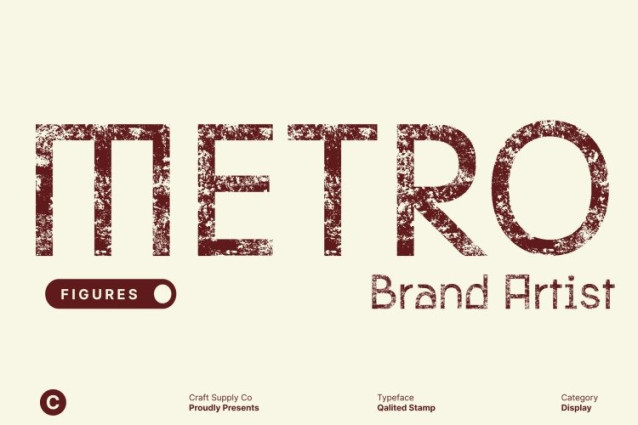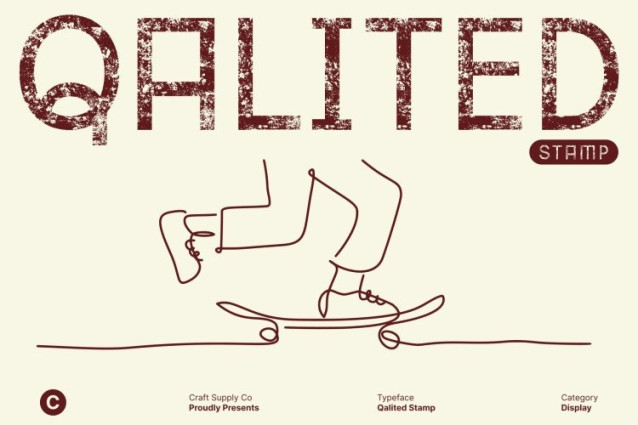
Qalited Stamp Font
Qalited Stamp Font This is a modern sans serif font designed with a unique blend of quirky personality and sleek industrial structure. Its clean, contemporary shapes create a bold visual identity, while subtle irregularities in form add a friendly, approachable feel. This balance of precision and playfulness makes a standout choice for designers seeking something modern yet full of character.
Industrial-Inspired Shapes for a Strong, Stylish Look
Built with sharp geometry, sturdy forms, and industrial-inspired details, this font radiates strength and modernity. Its structured design ensures clarity and visual impact, making it ideal for bold display use. Yet, the quirky letter shapes soften the rigidity, adding an expressive and creative twist that makes the typeface feel lively and engaging.
Stamped Texture for Vintage Depth and Authenticity
Enhancing its contemporary design is the stamp effect, which introduces worn edges, tactile texture, and handcrafted imperfection. This treatment infuses the font with a vintage, rugged, and dramatic quality perfect for projects that need an authentic, distressed aesthetic.
Perfect for Branding, Posters, and Creative Displays
This font shines in display-focused projects, making it perfect for branding, posters, packaging, logos, editorial headers, and creative digital layouts. Its industrial style ensures a strong contemporary presence, while the stamped texture adds expressive depth and charm making your designs instantly more memorable.